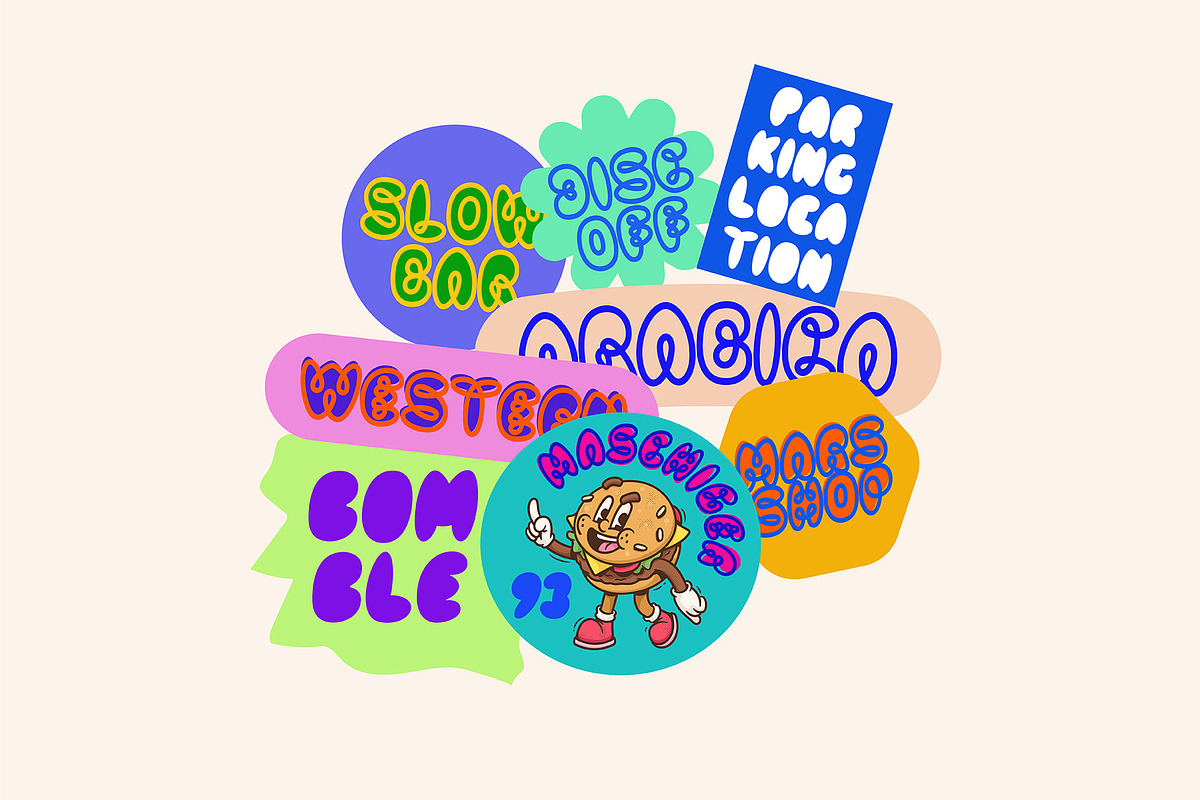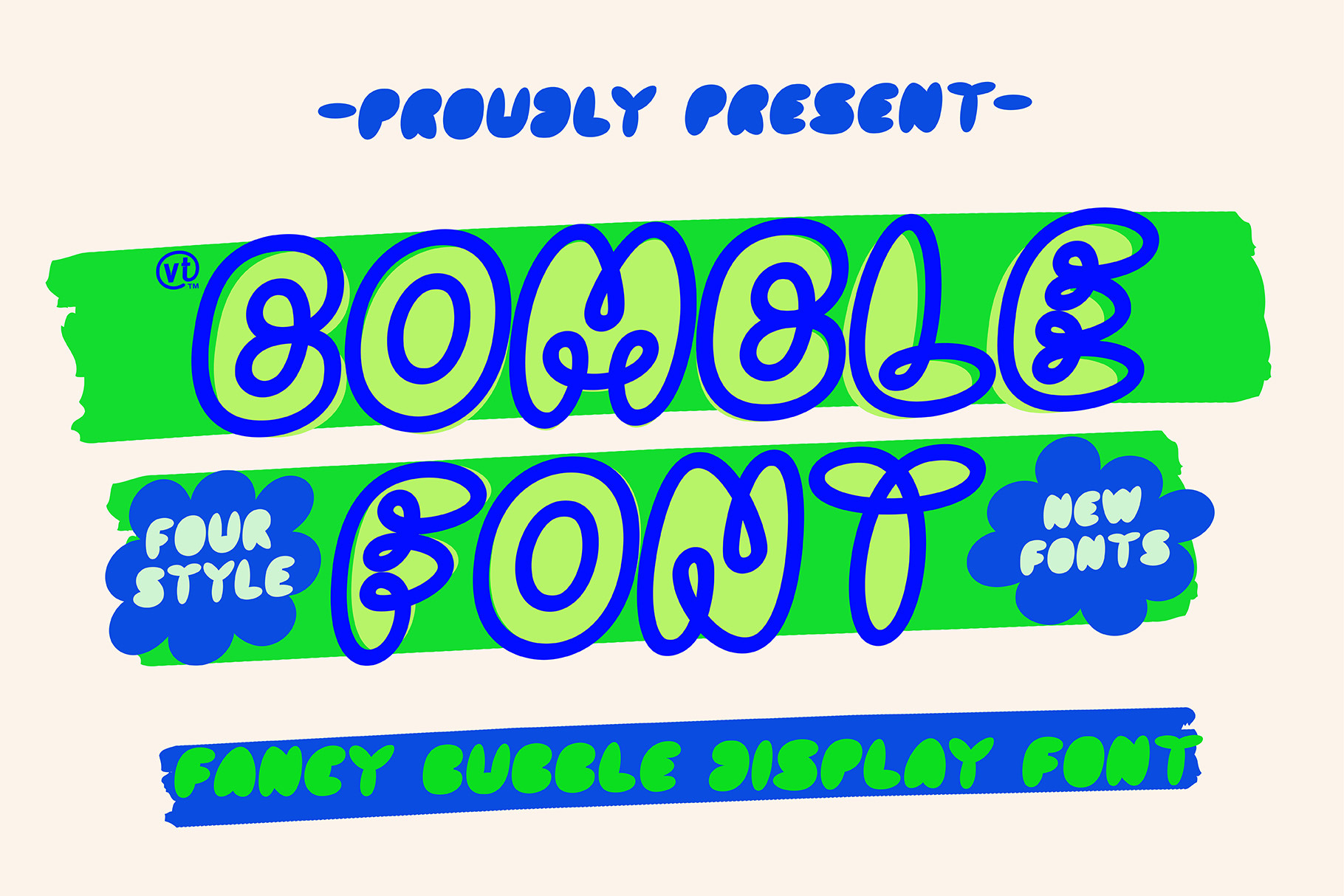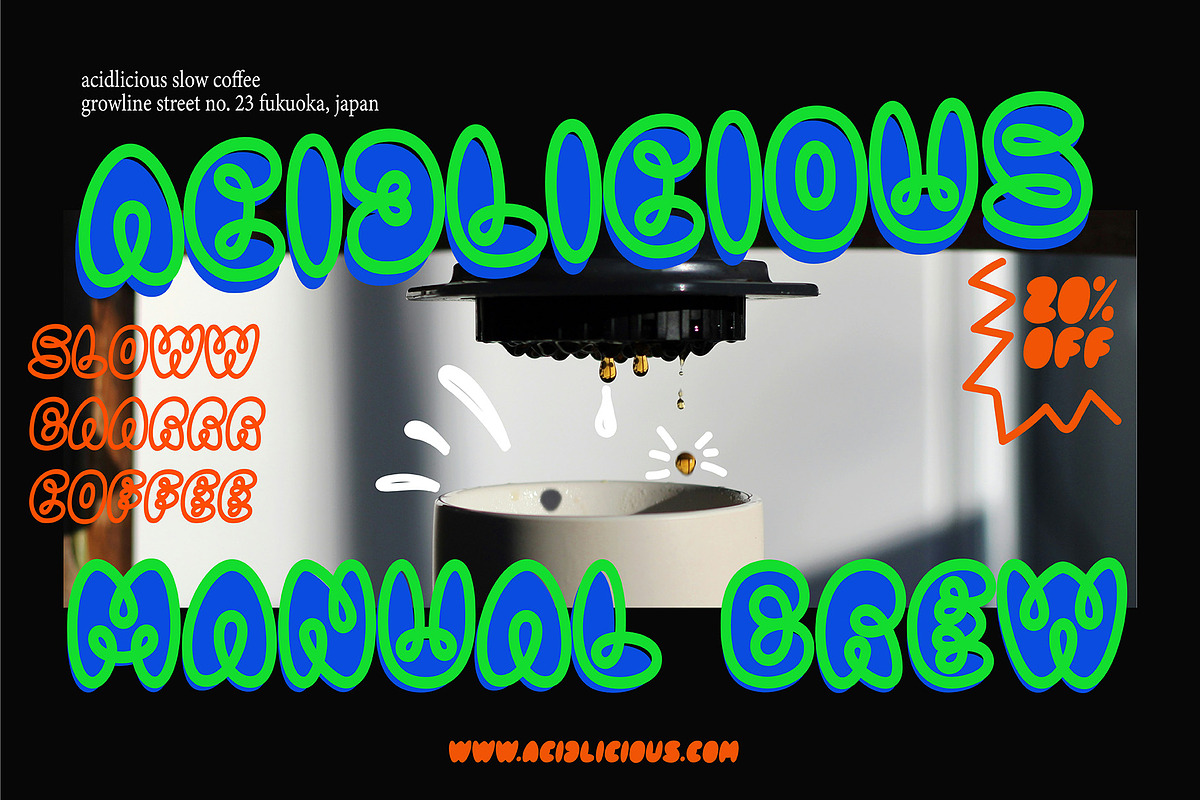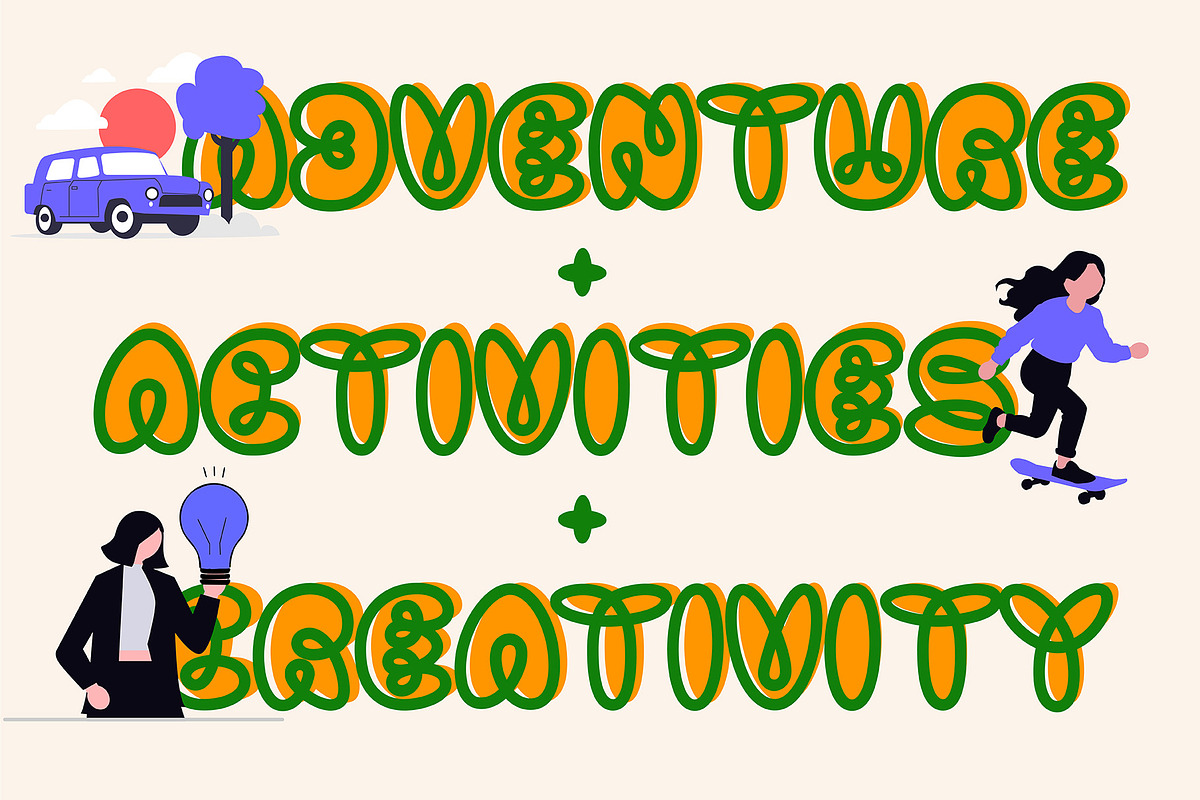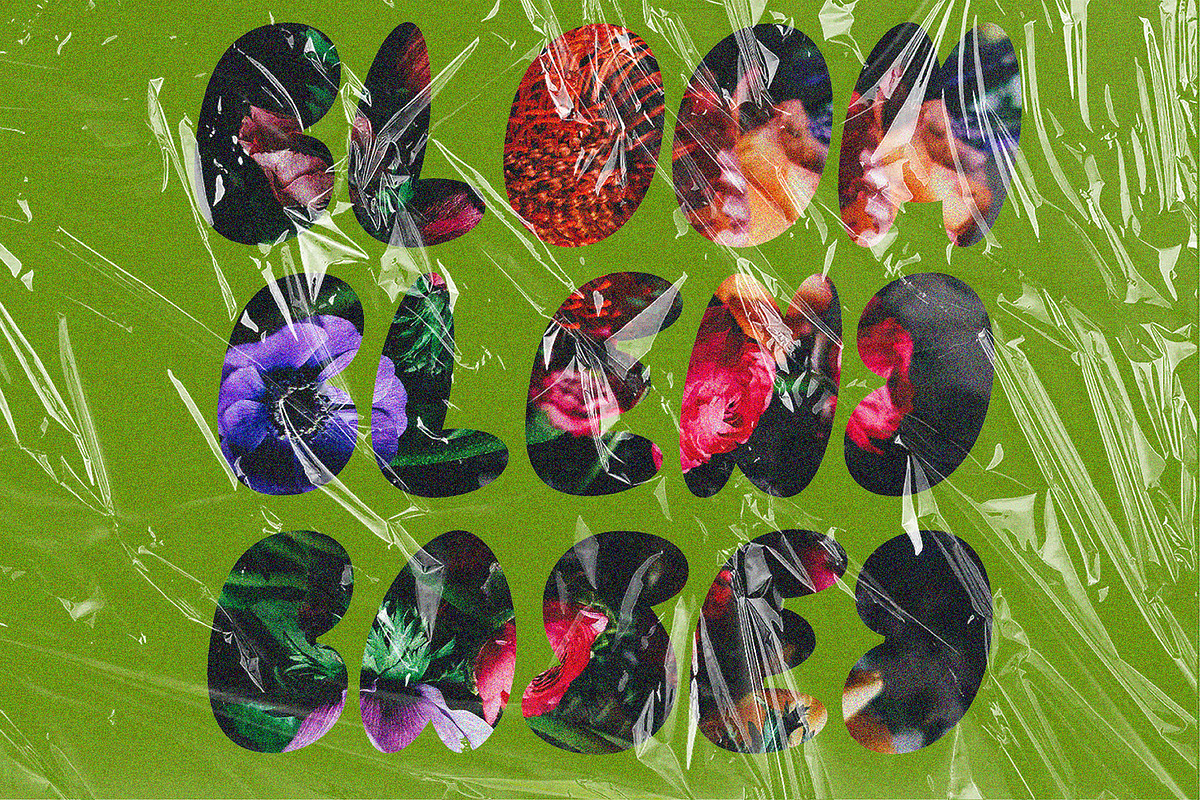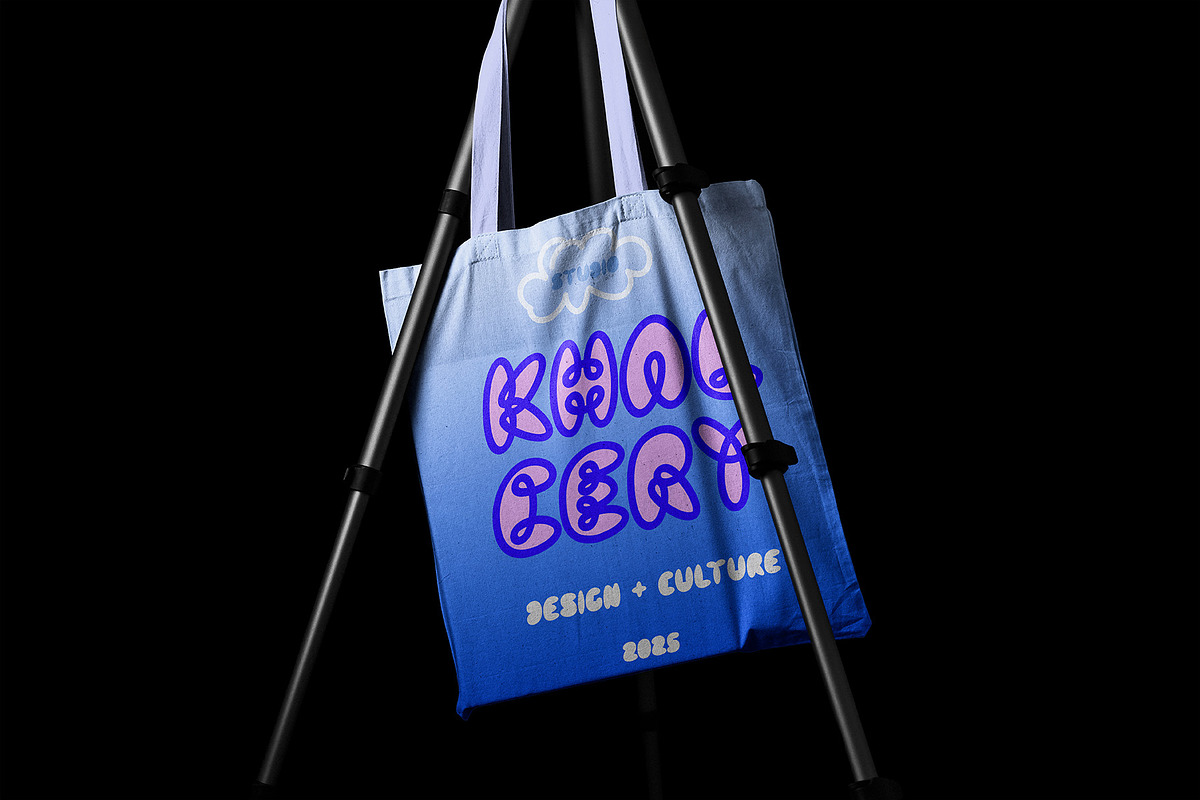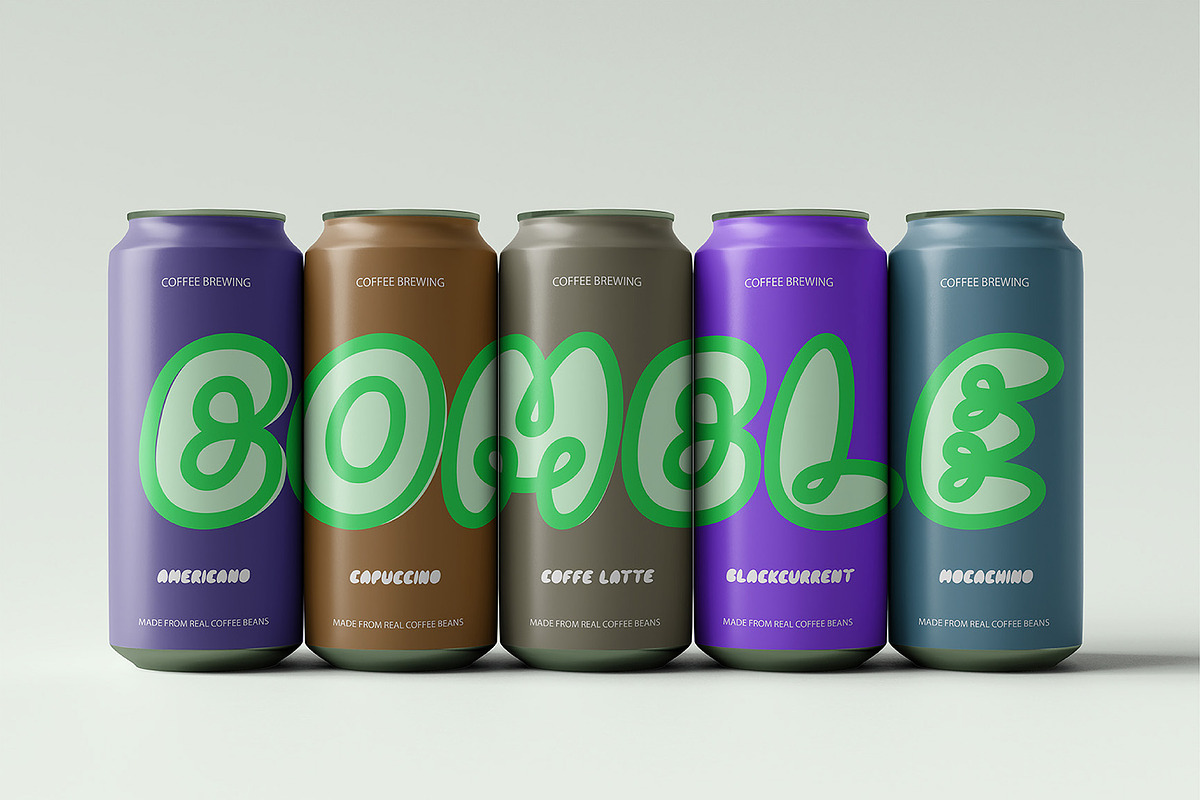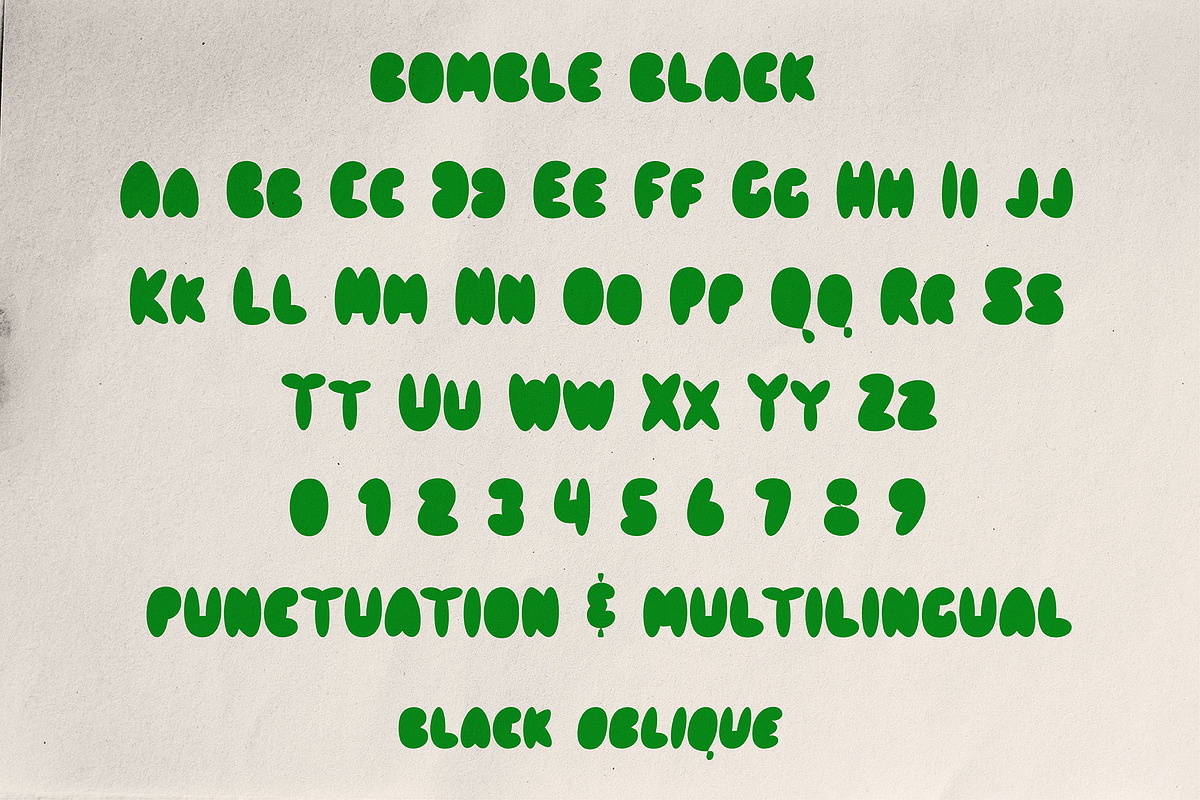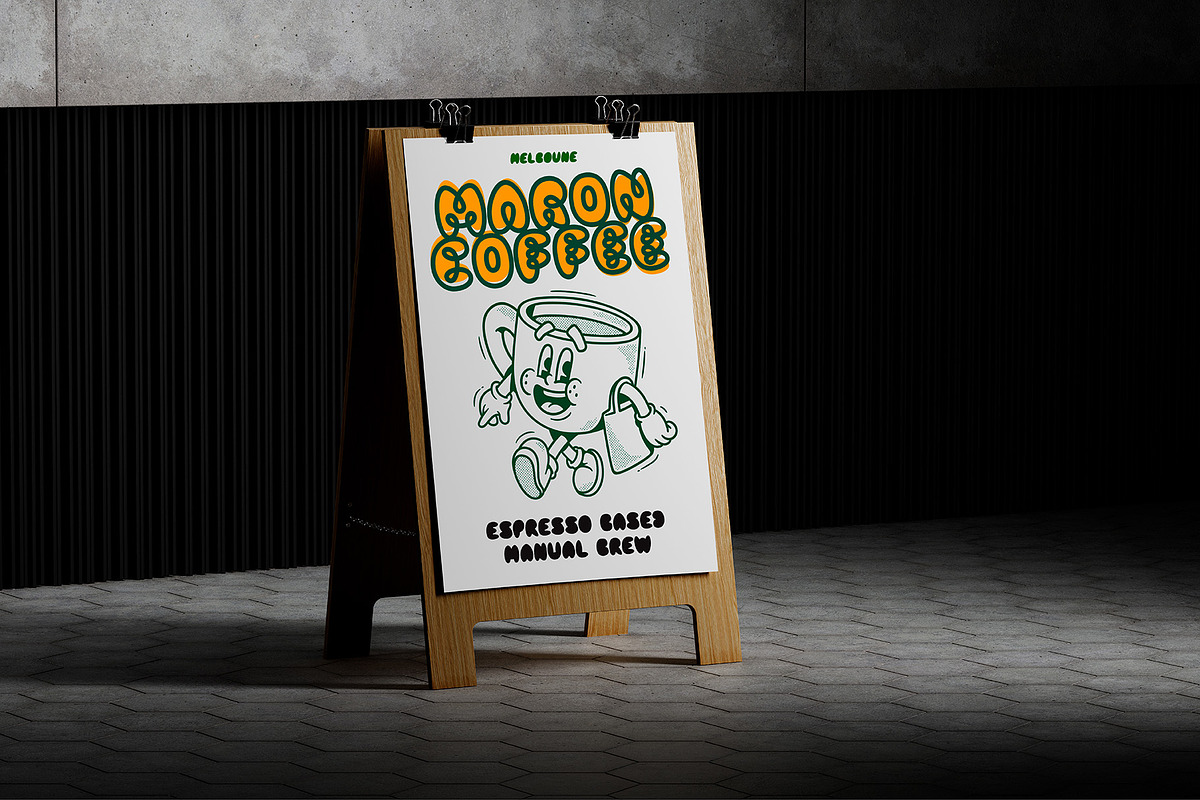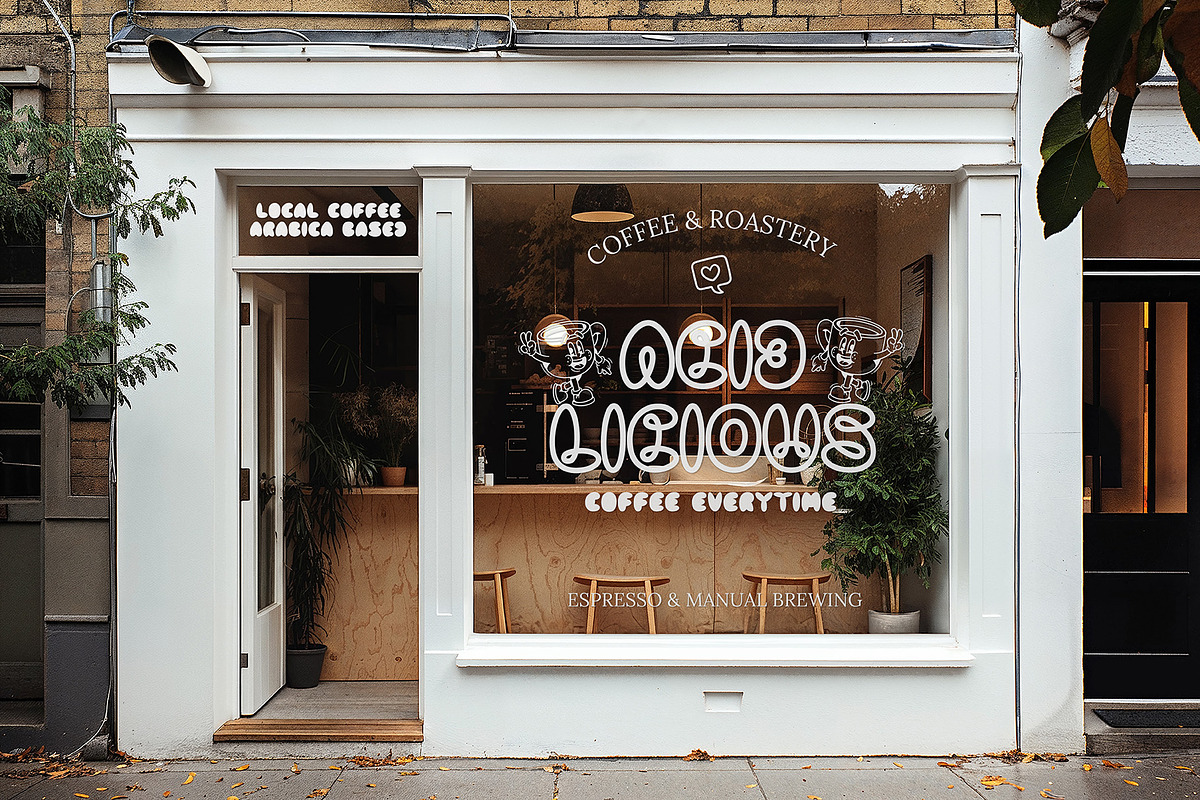
VT Bomble–Unique Bubble Display Font
Bomble – Unique Bubble Display Font for Bold & Playful Designs
Bomble is a distinctive bubble-style display font that blends quirky charm with eye-catching style. Designed to pop on any visual medium, Bomble is available in two weights – Regular and Black – and two styles – Regular and Oblique. Whether you're going for a clean bubble outline or a bold, solid look, Bomble delivers with playful precision.
The Regular/Outline version features smooth, uninterrupted letterforms that give a seamless, fluid feel – perfect for modern pop-culture aesthetics. The Black version stands out with its strong, chunky shapes, ideal for impactful titles and attention-grabbing packaging.
Perfectly suited for posters, product packaging, merchandise, branding, and editorial design, Bomble brings a vibrant, youthful energy to your creative projects. Its unique character makes it a great fit for designs that demand personality and fun.
Bring a burst of fun to your typography with Bomble – where bubble meets bold!